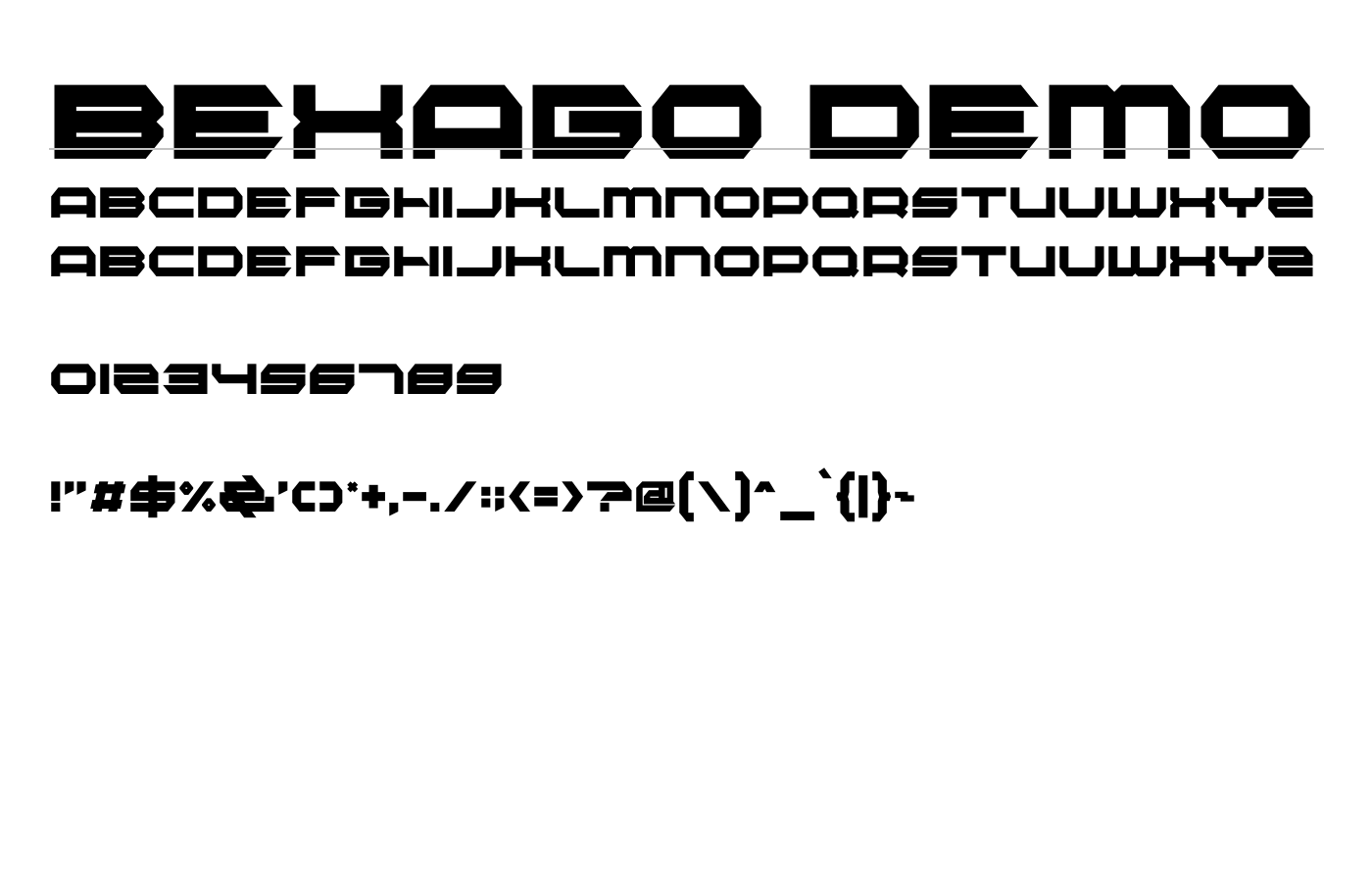
BEXAGO Font is a bold, geometric sans serif typeface with a futuristic and technical vibe, characterized by its heavy weight, angular edges, and tight spacing. Its sharp, straight lines and distinctive shapes make it ideal for impactful headlines, logos, and technology or sci-fi themed designs where a strong, modern presence is desired. This font works best in display settings where it can draw attention with its unique, blocky letterforms.
BEXAGO Font
About BEXAGO Font
| Font family | BEXAGO Font |
| Designer | Tri Kuncoro |